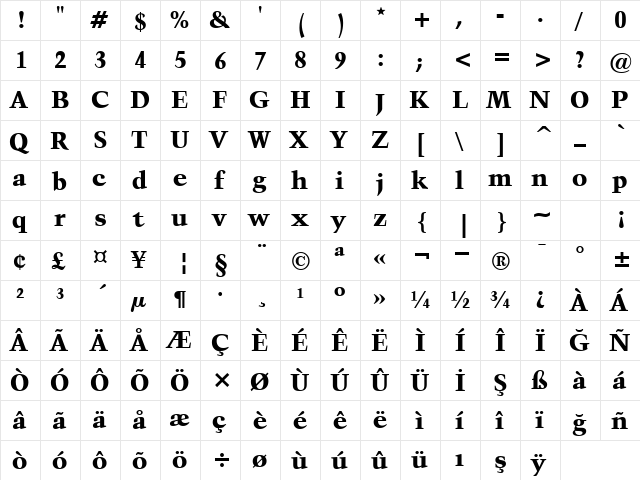
00412 Regular
Design Context for 00412 Typeface
00412 takes a measured approach to typography — its balanced proportions and neutral character make it a reliable workhorse for both digital and print work.